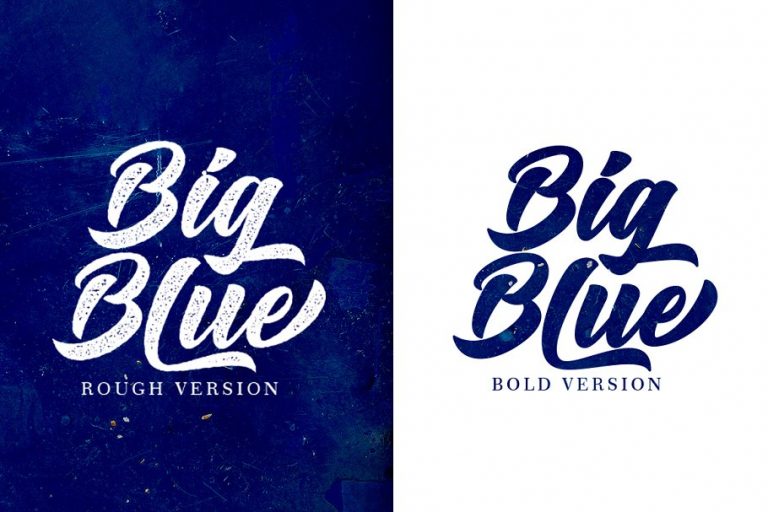
Big Blue Bold Script Font
Big Blue Bold Script Font is known to be the main typeface of Instagram. This is known for its text generation function and it is available for persona use.
Due to the quite some varieties of designers from some of the fields of fantastic veneer font collectively with that typeface and create a few new designs that take transport of as right with particular from others.
Style of Big Blue Bold Script Font Free